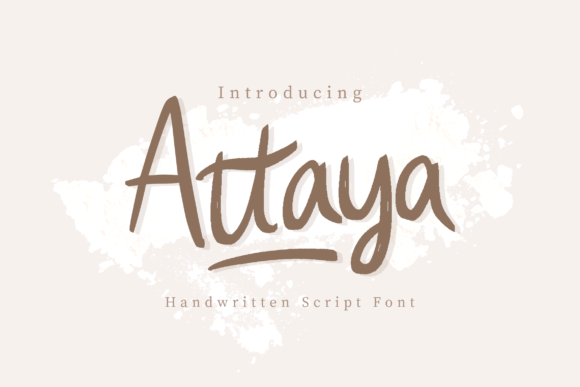
Discover the Charm of Attaya Font: A Playful and Lovely Typeface for Your Designs
Are you tired of using the same old fonts in your designs? Look no further than Attaya Font, a fun and lovely typeface that’s perfect for a variety of creative projects. With its playful look and feel, Attaya is sure to capture the hearts of designers and crafters alike. In this article, we’ll dive into the world of Attaya Font and explore its unique features, uses, and benefits.
What is Attaya Font?
Attaya Font is a modern, script-type font that’s designed to add a touch of whimsy and personality to your designs. Its playful and lovely aesthetic makes it perfect for a wide range of projects, from wedding invitations and party decorations to branding and advertising materials. Whether you’re a professional designer or a DIY crafter, Attaya Font is sure to inspire your creativity and bring a smile to your face.
Unique Features of Attaya Font
So, what sets Attaya Font apart from other typefaces? Here are a few of its unique features:
• Playful and Cursive Design: Attaya Font features a beautiful, cursive script that’s perfect for adding a touch of elegance and sophistication to your designs.
• Highly Legible: Despite its playful design, Attaya Font is highly legible, making it perfect for use in body text, headings, and titles.
• Extensive Character Set: Attaya Font comes with an extensive character set, including uppercase and lowercase letters, numbers, and punctuation marks.
• Multilingual Support: Attaya Font supports multiple languages, making it a great choice for designers and crafters who work with international clients or create content for a global audience.
Uses of Attaya Font
Attaya Font is a versatile typeface that can be used in a variety of creative projects, including:
• Wedding Invitations and Party Decorations: Add a touch of elegance and sophistication to your wedding invitations, party decorations, and other celebratory materials with Attaya Font.
• Branding and Advertising: Use Attaya Font to create eye-catching logos, advertisements, and marketing materials that showcase your brand’s personality and style.
• Digital and Print Media: Attaya Font is perfect for use in digital and print media, including social media graphics, blog posts, and magazine articles.
• Crafting and DIY Projects: Add a personal touch to your crafting and DIY projects, such as handmade cards, gift tags, and scrapbook pages, with Attaya Font.
Benefits of Using Attaya Font
So, why should you choose Attaya Font for your next design project? Here are a few benefits:
• Adds Personality to Your Designs: Attaya Font’s playful and lovely aesthetic adds a touch of personality to your designs, setting them apart from more traditional typefaces.
• Easy to Read and Understand: Attaya Font’s high legibility makes it easy for your audience to read and understand your message, ensuring that your designs are effective and engaging.
• Versatile and Flexible: Attaya Font can be used in a variety of creative projects, from digital and print media to crafting and DIY projects.
• Supports Multiple Languages: Attaya Font’s multilingual support makes it a great choice for designers and crafters who work with international clients or create content for a global audience.
Font Name Attaya Font
Author peterdraw
In conclusion, Attaya Font is a fun and lovely typeface that’s perfect for designers and crafters who want to add a touch of personality and whimsy to their designs. With its playful look and feel, extensive character set, and multilingual support, Attaya Font is a versatile and flexible typeface that’s sure to inspire your creativity and bring a smile to your face. So why not give Attaya Font a try today and see the difference it can make in your designs?